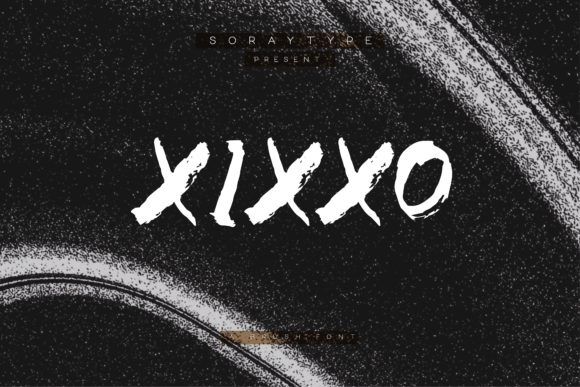
In a world of digital monotony, where bland fonts dominate the online landscape, Xixxo emerges as a breath of fresh air, a handwritten script font that captivates the senses and ignites creativity. Crafted with passion by soraytype, Xixxo embodies the essence of artistic expression, transforming your digital creations into heartfelt masterpieces.
Xixxo is not just a font; it's an invitation to embark on a journey of self-expression, a chance to let your individuality shine through every word you type. Its fluid strokes, reminiscent of a skilled calligrapher's hand, lend an air of elegance and sophistication to your designs, making them stand out from the sea of ordinary.
Whether you're designing wedding invitations that evoke a sense of timeless romance, creating promotional materials that demand attention, or simply adding a personal touch to your website or branding, Xixxo is your ultimate companion. Its versatility knows no bounds, adapting seamlessly to a myriad of projects, from heartfelt greeting cards to captivating social media posts.
With Xixxo, you have the power to transform the mundane into the magnificent, the ordinary into the extraordinary. Its carefully crafted characters, each a testament to soraytype's dedication to detail, will elevate your designs to new heights, leaving a lasting impression on your audience.
So why settle for dull, lifeless fonts when you can embrace the beauty of Xixxo? Experience the joy of handwritten artistry, the freedom of self-expression, and the satisfaction of creating designs that resonate with your audience. Let Xixxo be your muse, your creative spark, and your ticket to a world of captivating typography.